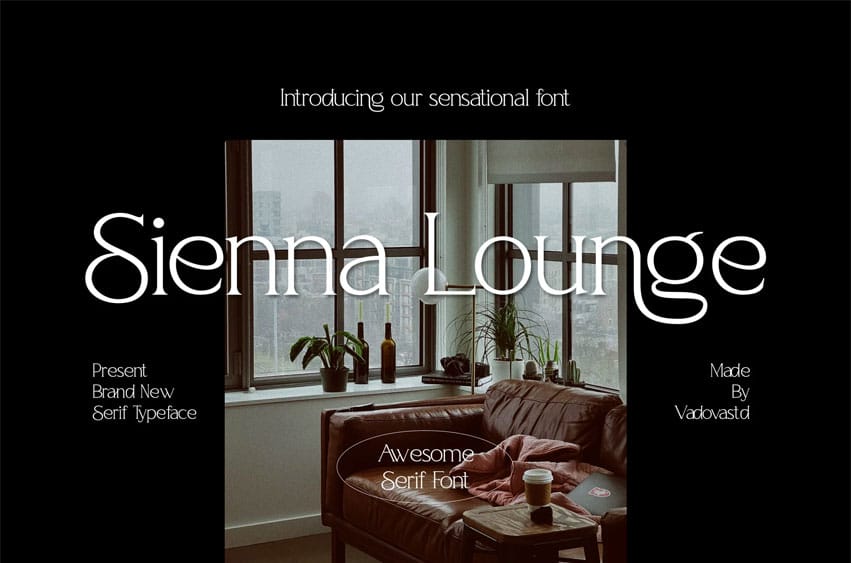
Sienna Lounge Font is a modern script font perfect for adding elegance and style to your projects. Whether it’s for quotes, logotypes, magazine headers, or more, this versatile typeface ensures your text stands out beautifully.